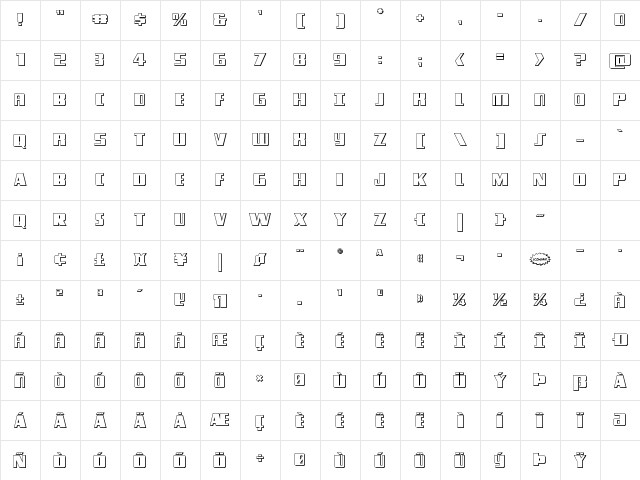
Typhoon 3D Regular
Design Context for Typhoon 3D
Typhoon 3D is a composed and adaptable typeface that performs quietly and consistently across a wide range of design contexts.
Pro Tip: Use Typhoon 3D in both headline and body roles to test its range before committing to a single application.